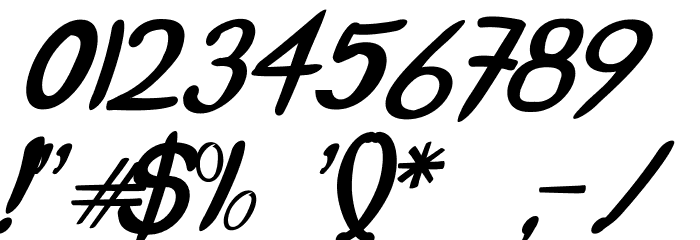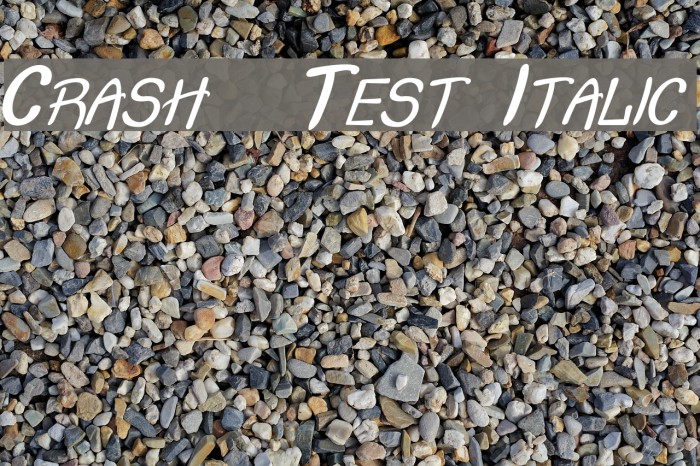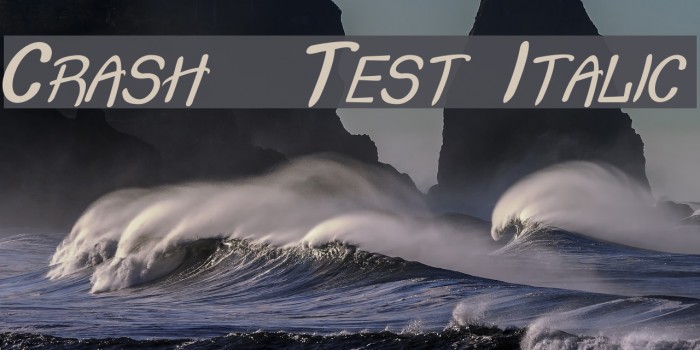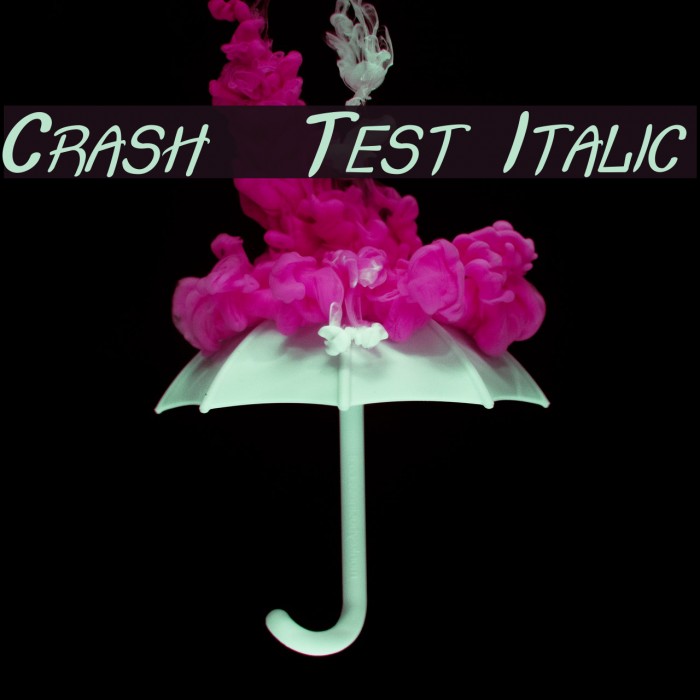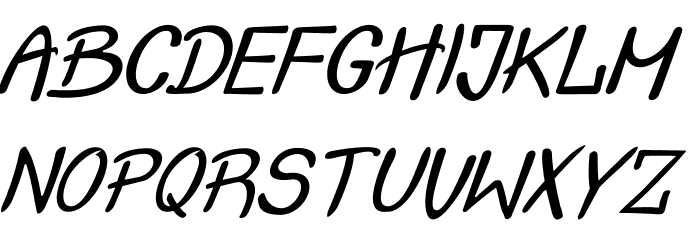
Crash Test Italic Font
Crash Test Italic Description
This font features a dynamic and energetic style with a distinct italic slant, giving it a sense of motion and urgency. The characters are bold and slightly condensed, with smooth curves and sharp edges that create a striking visual impact. The uppercase and lowercase letters maintain a consistent flow, while the numerals and special characters complement the overall design. This font's unique style makes it suitable for projects that require a bold and expressive touch.
| Proposed Projects | Ideal for branding, advertising, posters, and any design that needs a bold, energetic look. |